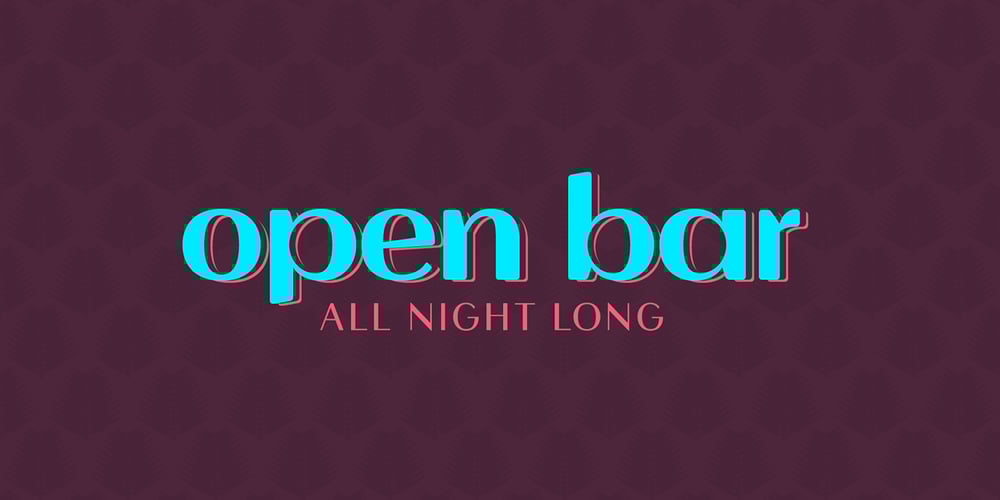
Darlene
Darlene font
Darlene Font Family was designed by Dominik Krotscheck and published by Dominik Krotscheck. Darlene contains 6 styles and family package options. Darlene is a sans with contrast and round corners. The absence of serifs results in a clean look, the contrast adds a touch of elegance and the soft edges help to keep it all friendly looking. So whenever you need to convey any of these traits, Darlene is perfect for you. Mainly intended for headlines, logos, invitations or other display uses, this font family provides enough readability to be used for short texts, especially the lighter weights. This means that Darlene is great if you want to use it as a counterpart to a script or handlettering, or simply to juxtapose a more playful or kitschy font. Darlene is available in three weights with italics and equipped with lots of accented characters to cover heaps of languages using the latin alphabet.